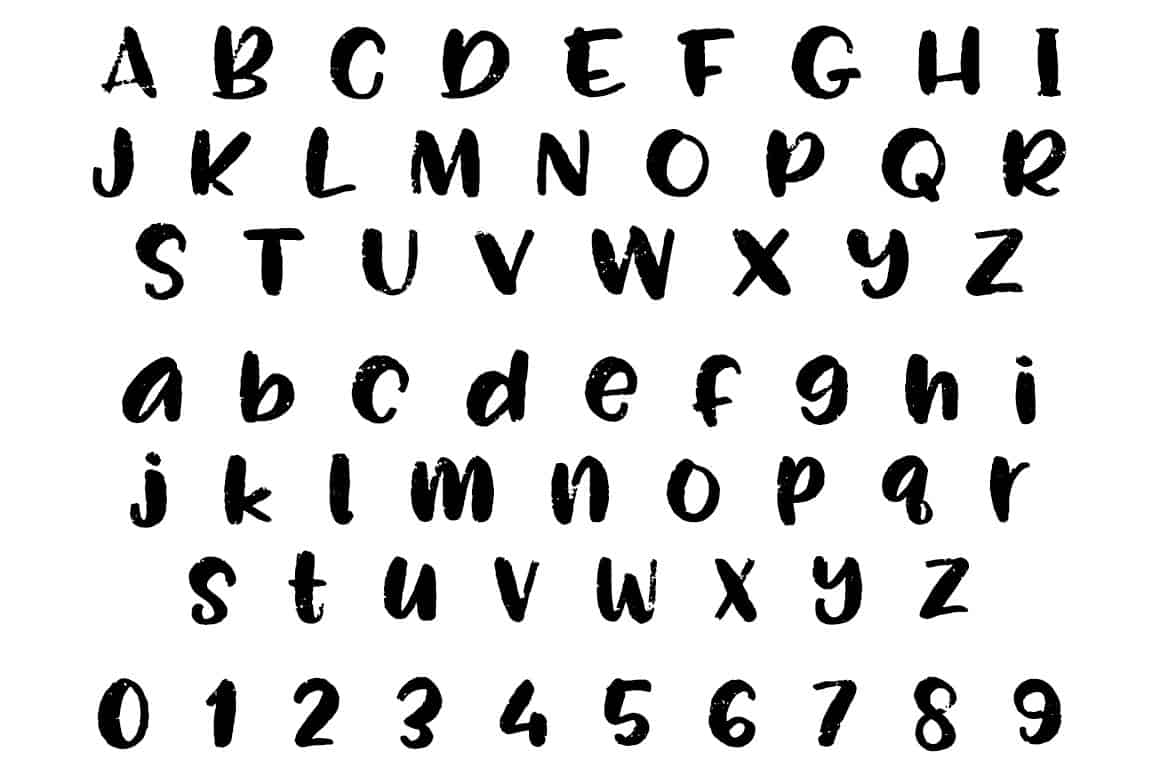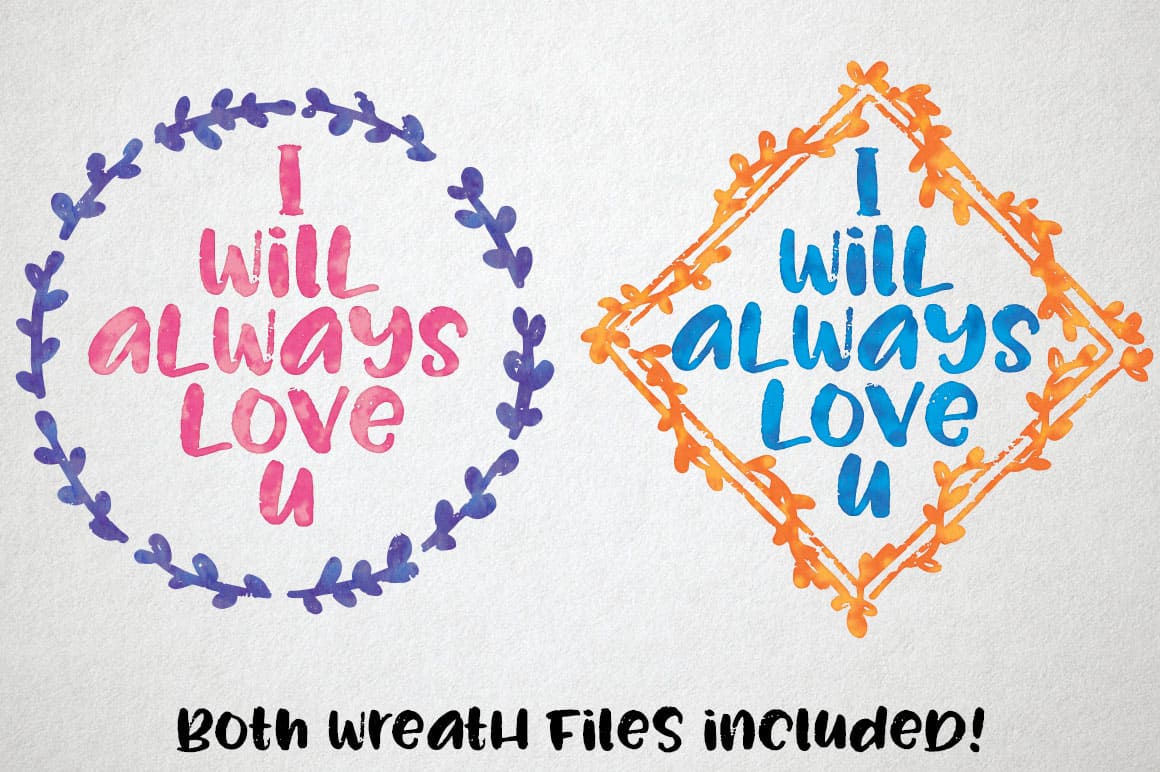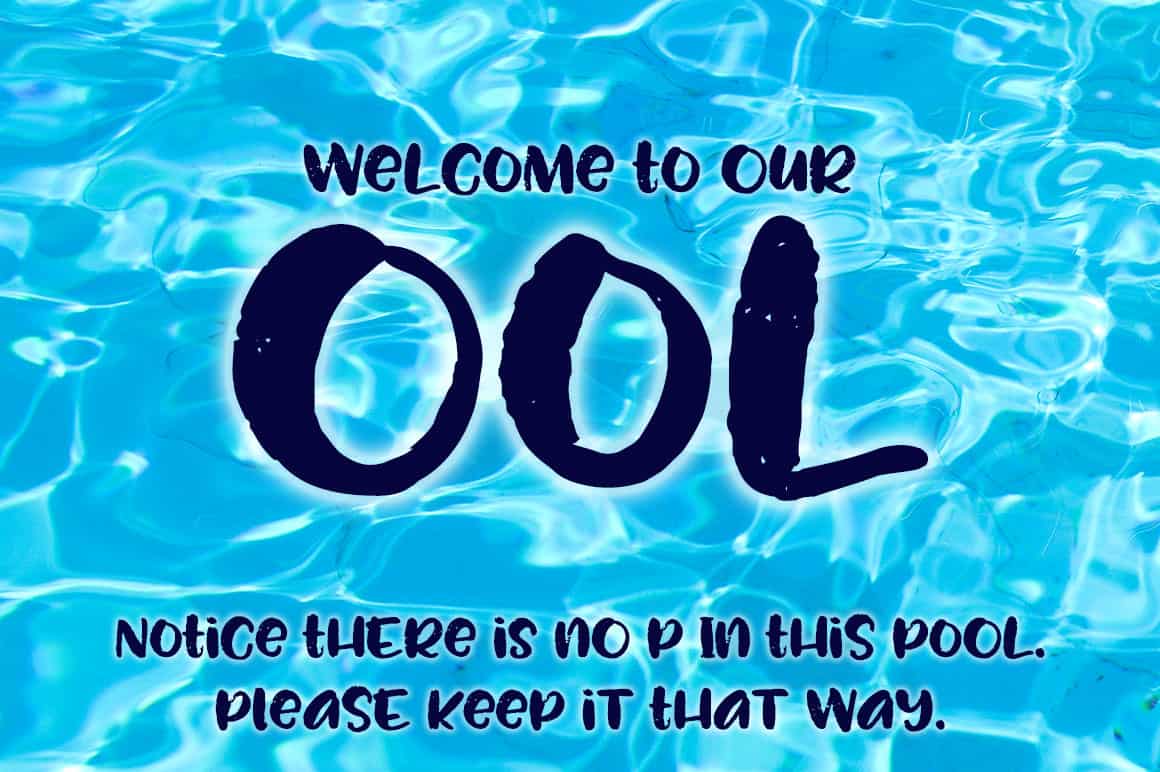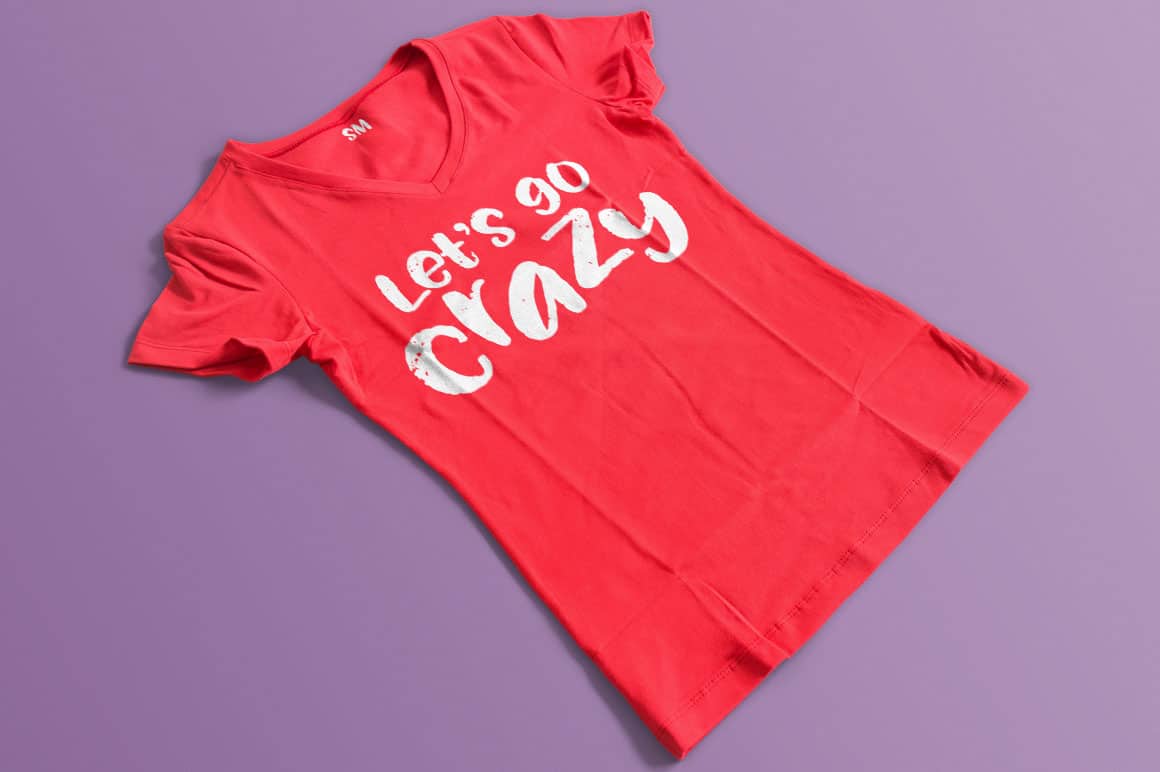
Rough Puff
Roughpuff 01
Roughpuff Alphabet
Roughpuff Mock Wreaths
Roughpuff No P In Ool
Roughpuff Tee Crazy
It’s kind of cute, but it’s kind of rough . . . like a kitten with claws. Like a puppy that bites. Like a cupcake when you’re gluten-intolerant. It’s Rough Puff!
Most of my typefaces are taller and thinner, so I wanted to go with something a little more round and plump. But to keep it from becoming too darling, I drew the letters with a textured brush to give them a tougher edge. Rough Puff’s lowercase letters are sized tall so they can be mixed and matched with the uppercase to give a unique handwritten look.
And since I drew a couple of matching wreaths to use in my sample images, I’m including those two wreaths for you to use as well!
Rough Puff
Rough Puff- Preview Image
Rough Puff Character Map